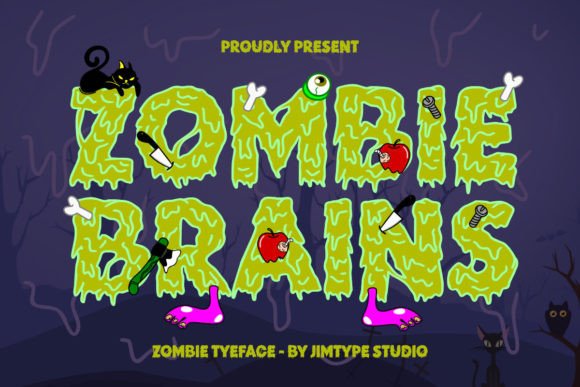
**Introducing Zombie Brains Font: A Font that Will Make Your Halloween Night a Frightening Delight**
Prepare to be spooked by Zombie Brains Font, a hauntingly beautiful display font that will add a touch of eerie elegance to all your Halloween-themed designs. Whether you're crafting invitations for a spine-chilling party or creating spine-tingling marketing materials, this font has got you covered.
**Dripping with Character, Oozing with Charm**
Zombie Brains Font is not your average Halloween font. It's a font that captures the essence of the undead, dripping with character and oozing with charm. Each letter has been meticulously crafted to evoke the spooky spirit of the season, with jagged edges and menacing curves that will send shivers down your spine.
**Perfect for All Your Halloween Endeavors**
Whether you're a seasoned graphic designer or a Halloween enthusiast looking to add some extra flair to your projects, Zombie Brains Font is the perfect choice. It's versatile enough to be used in a wide range of applications, from invitations and posters to social media graphics and website designs.
**A Font that Will Make Your Projects Stand Out from the Grave**
In a sea of ordinary Halloween fonts, Zombie Brains Font rises above the rest. Its unique and eye-catching design will make your projects stand out from the grave. So, if you're looking for a font that will add a touch of spooky sophistication to your Halloween creations, look no further than Zombie Brains Font.